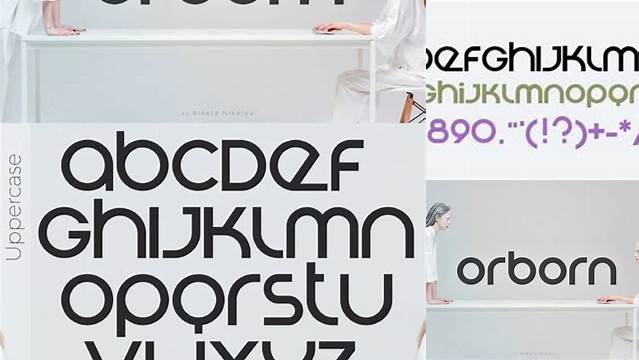
Hey guys! Are you looking for that perfect font to spice up your designs? Well, look no further! In this guide, we're diving deep into the world of Orborn Font, exploring everything from where to snag it for free to how to use it like a pro. Let's get started!
1. What is Orborn Font?
Orborn Font is a modern, versatile typeface that's become super popular among designers and creatives. Its clean lines and unique character make it ideal for a wide range of projects, from branding to web design and everything in between. Orborn font manages to strike a balance between modern aesthetics and a touch of classic elegance, making it suitable for both digital and print mediums. The typeface includes a variety of weights and styles, providing designers with flexibility to adapt it to different design needs. Whether you're designing a logo, crafting marketing materials, or putting together a website, Orborn font offers a polished and professional look. In recent years, its availability for free download has further fueled its popularity, making it a go-to choice for designers looking to add a contemporary flair to their work without breaking the bank. Understanding its characteristics is the first step in leveraging its potential for your own creative projects.